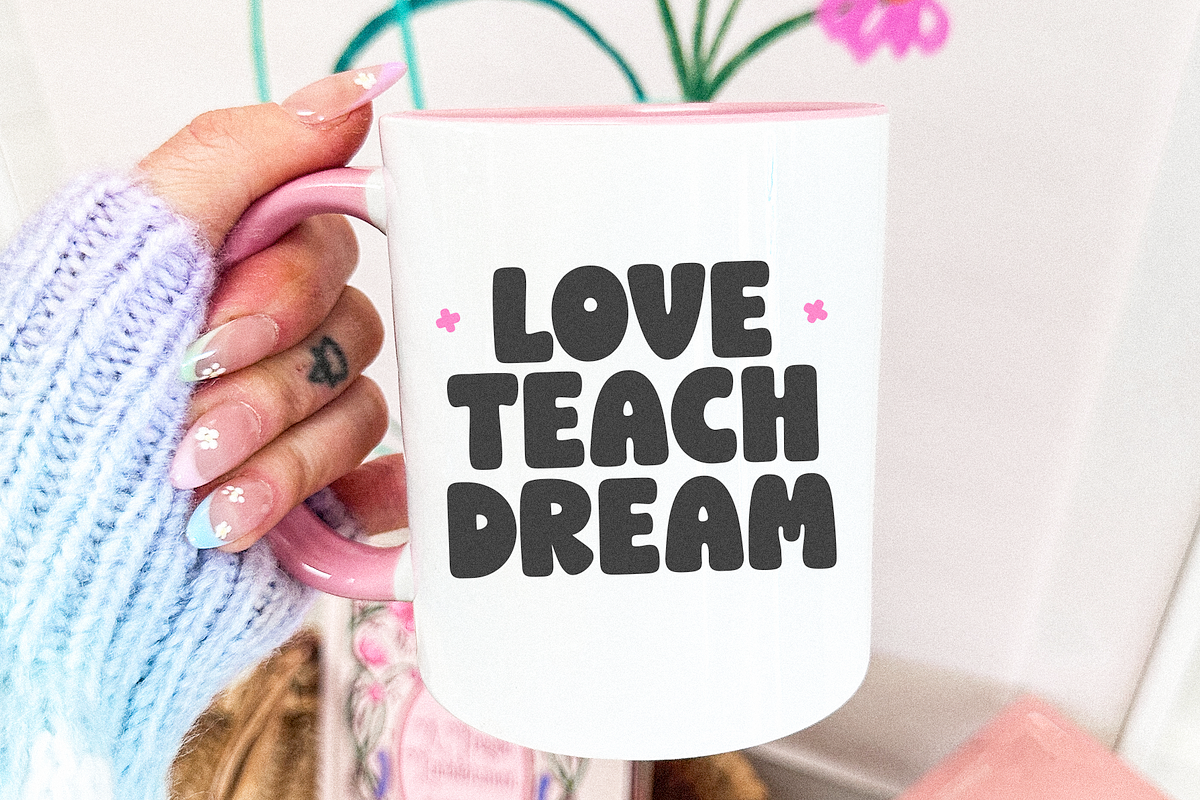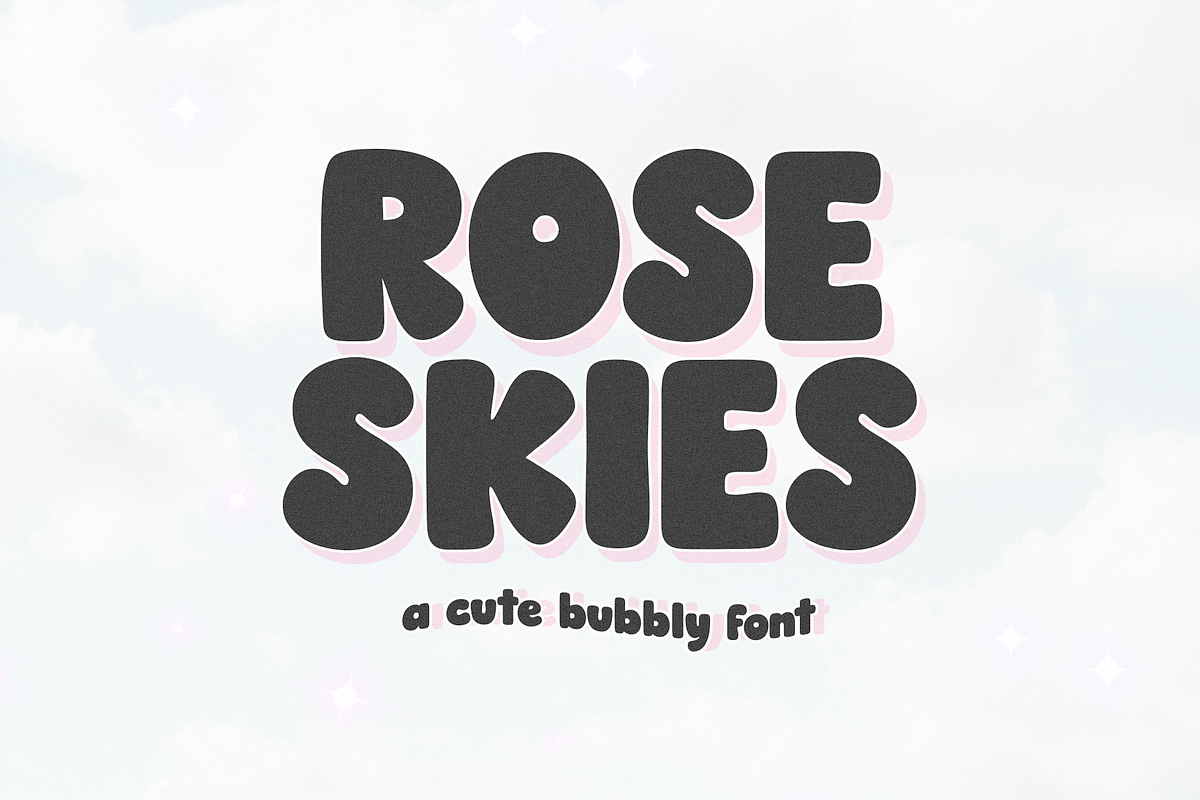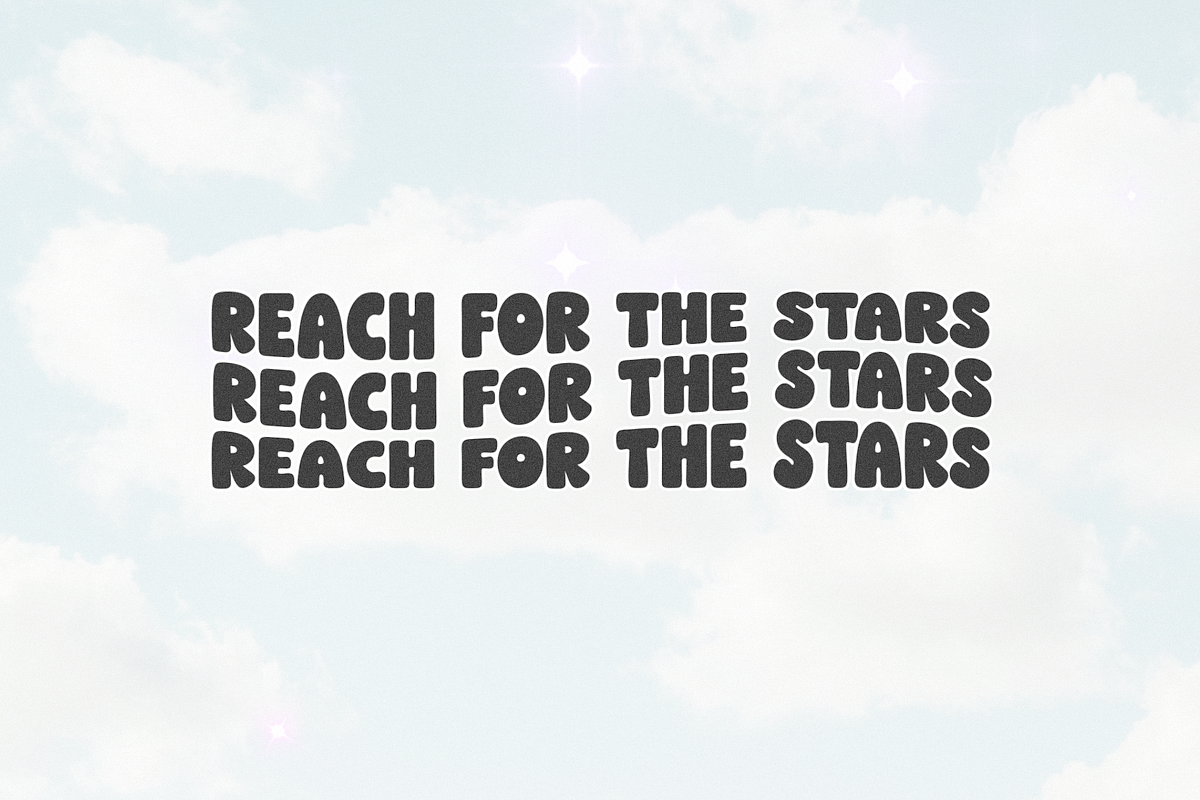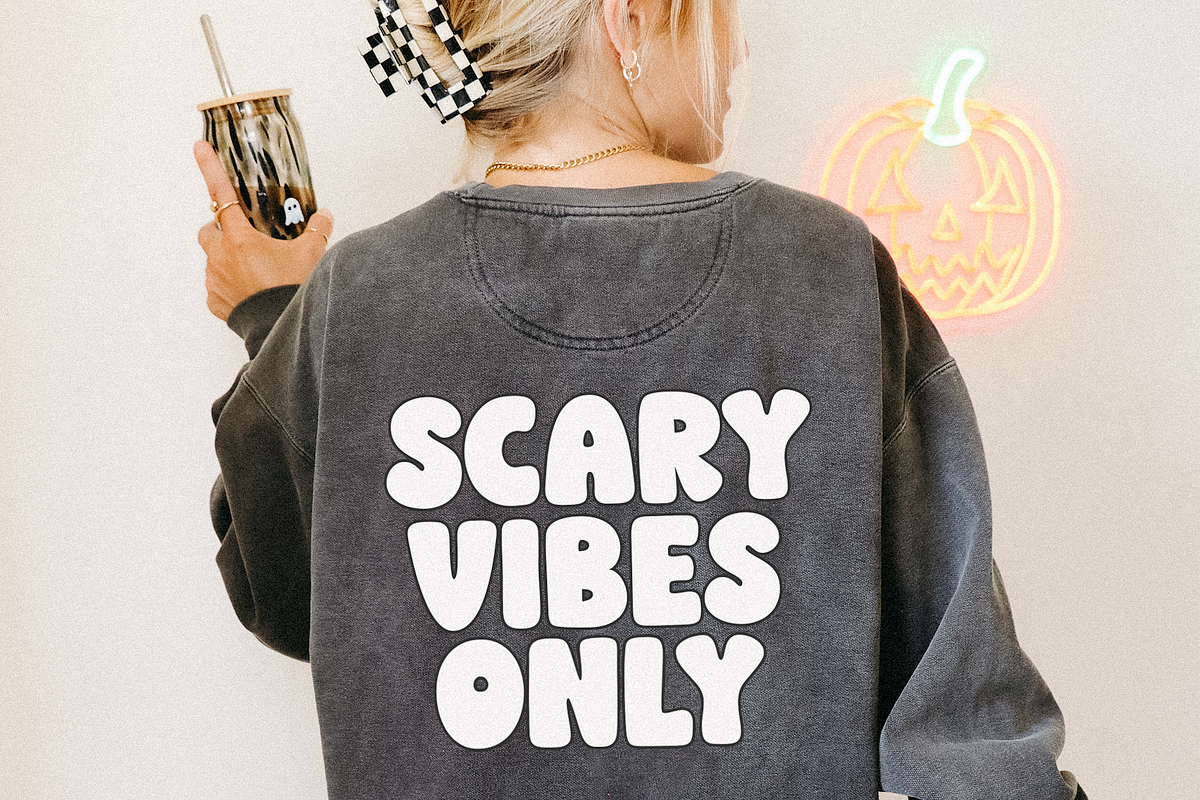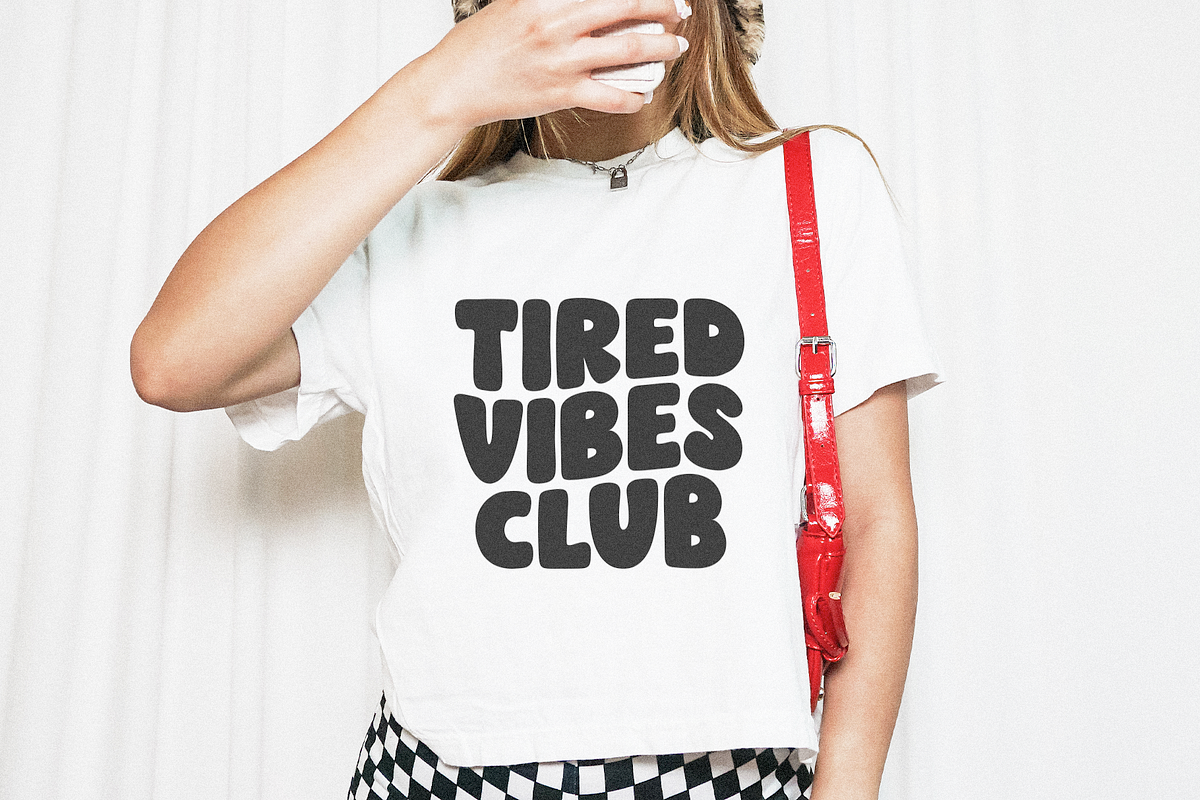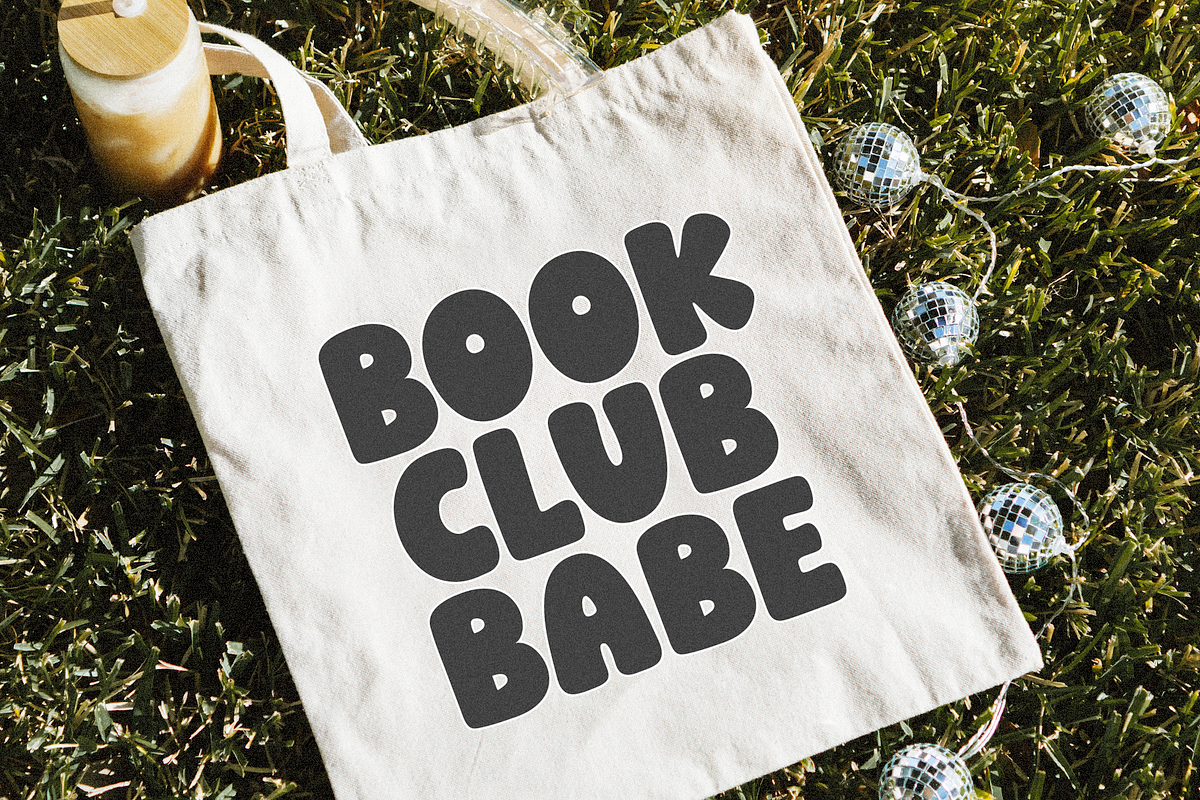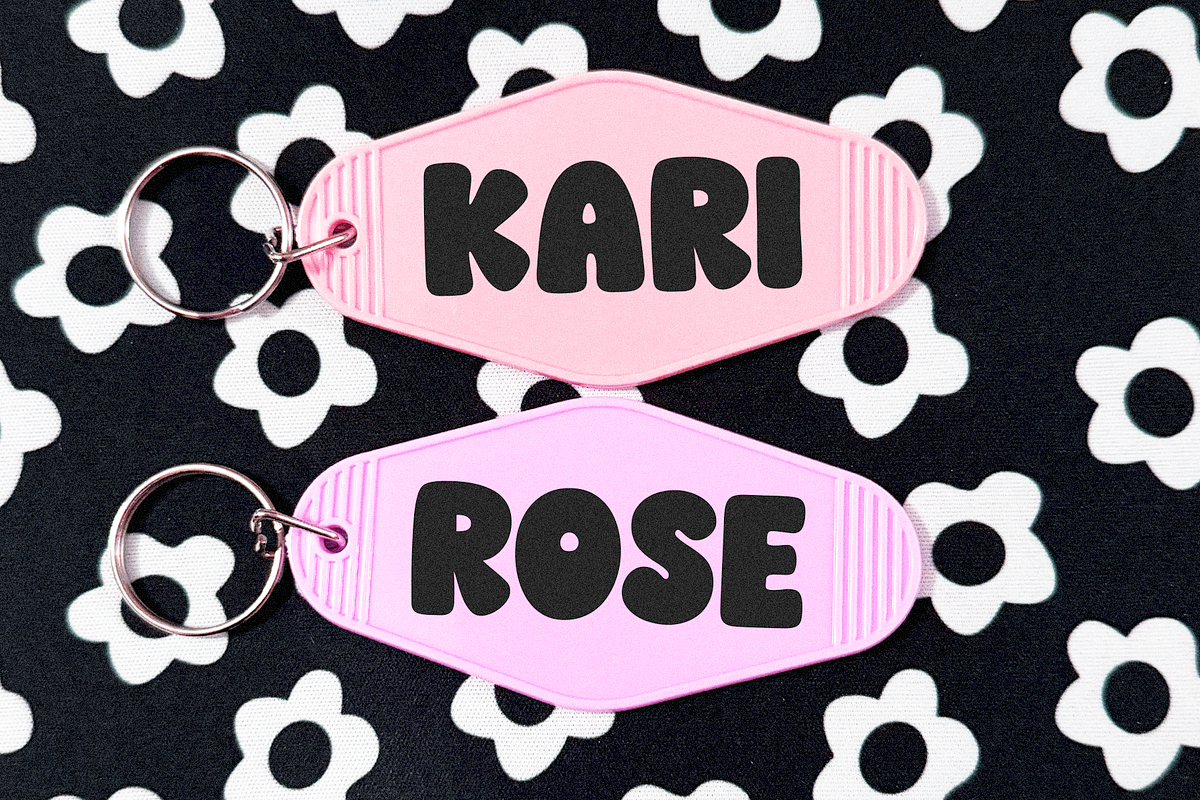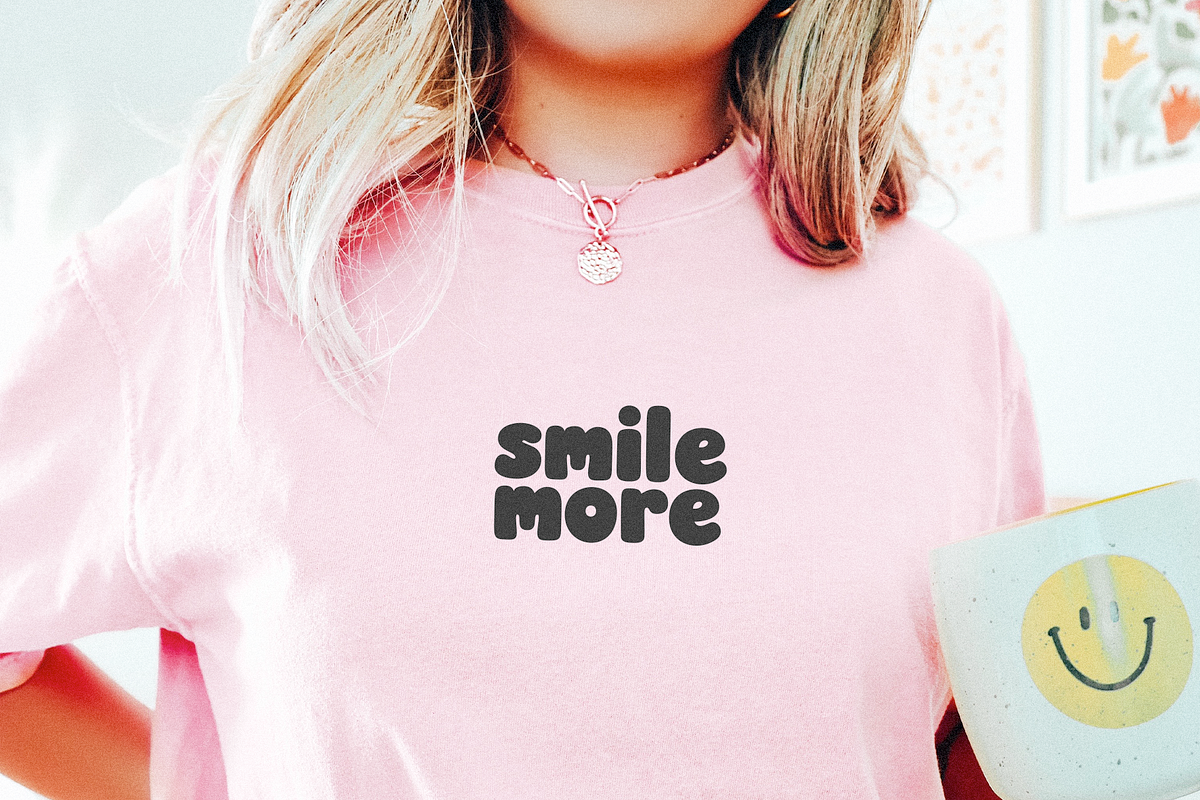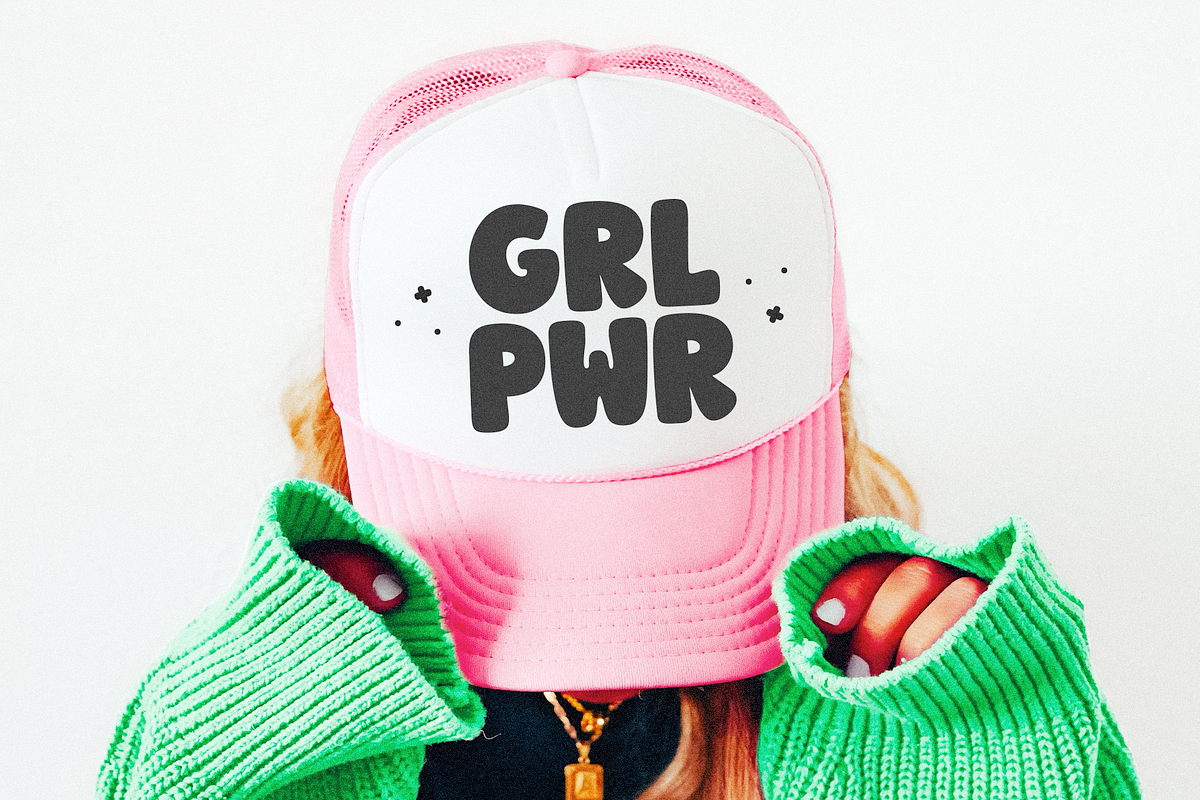
Rose Skies | Cute Bubbly Font
Rose Skies is a bold bubbly font.
This font is perfect for cricut projects, logos, shirts, svg files, planners, stickers, quotes, social media and more!